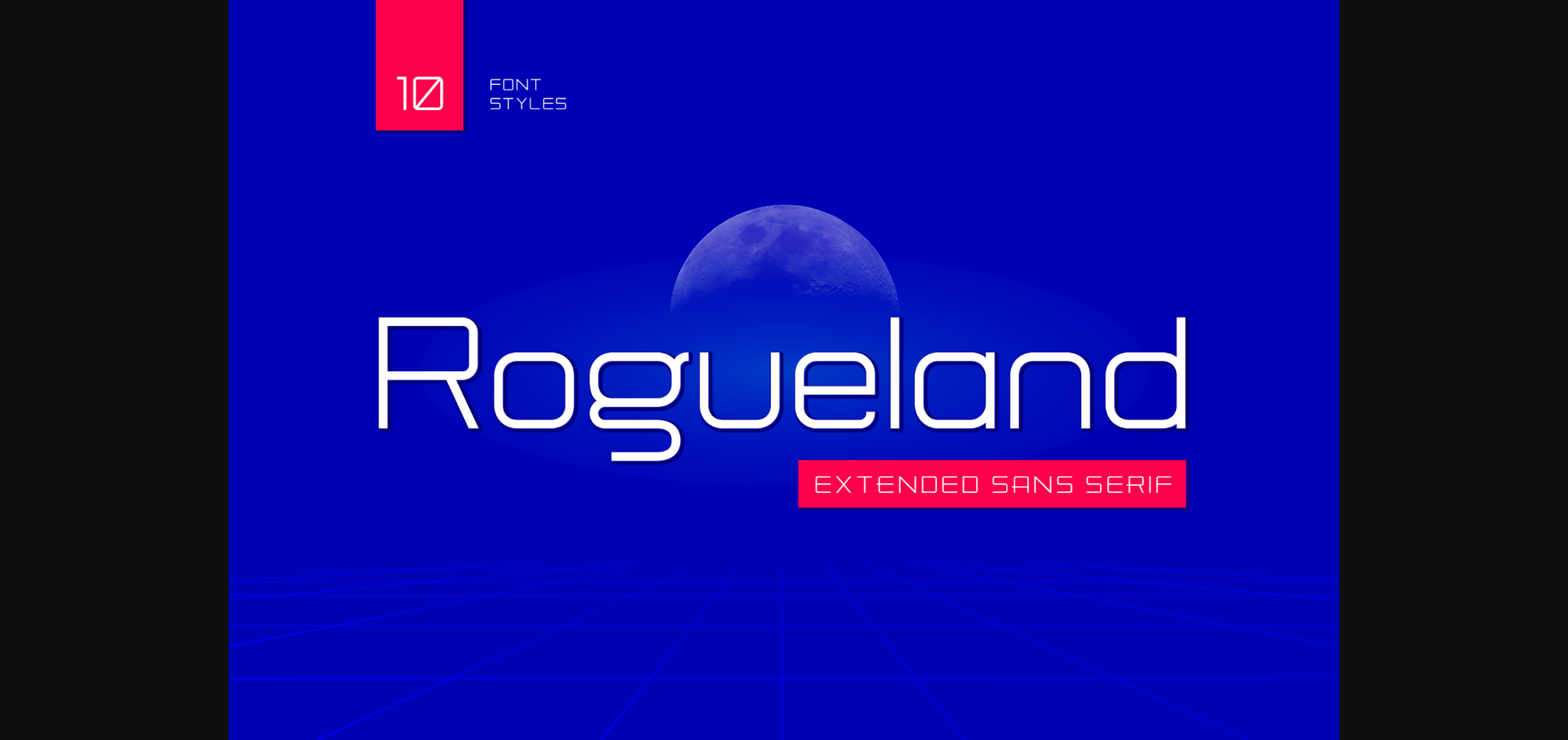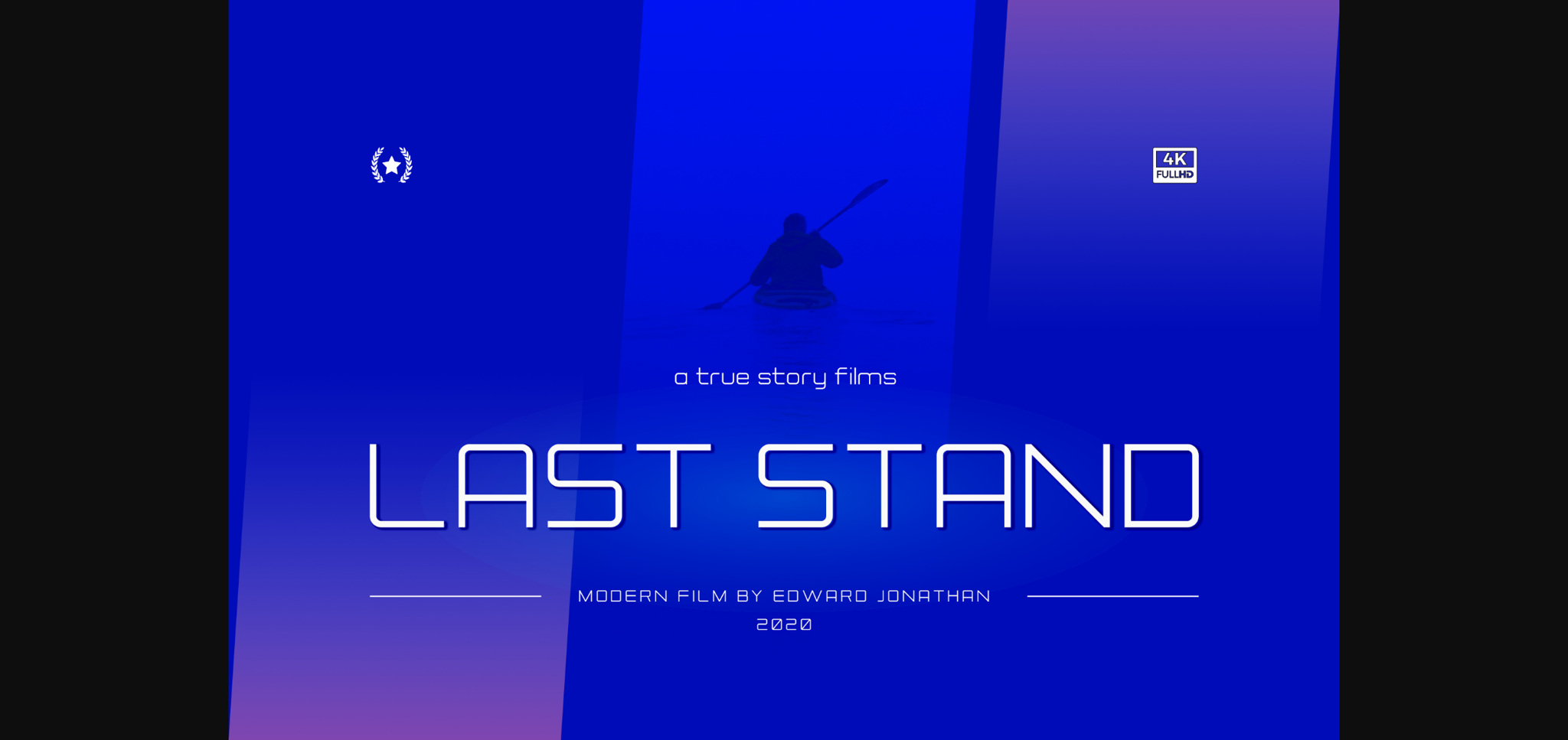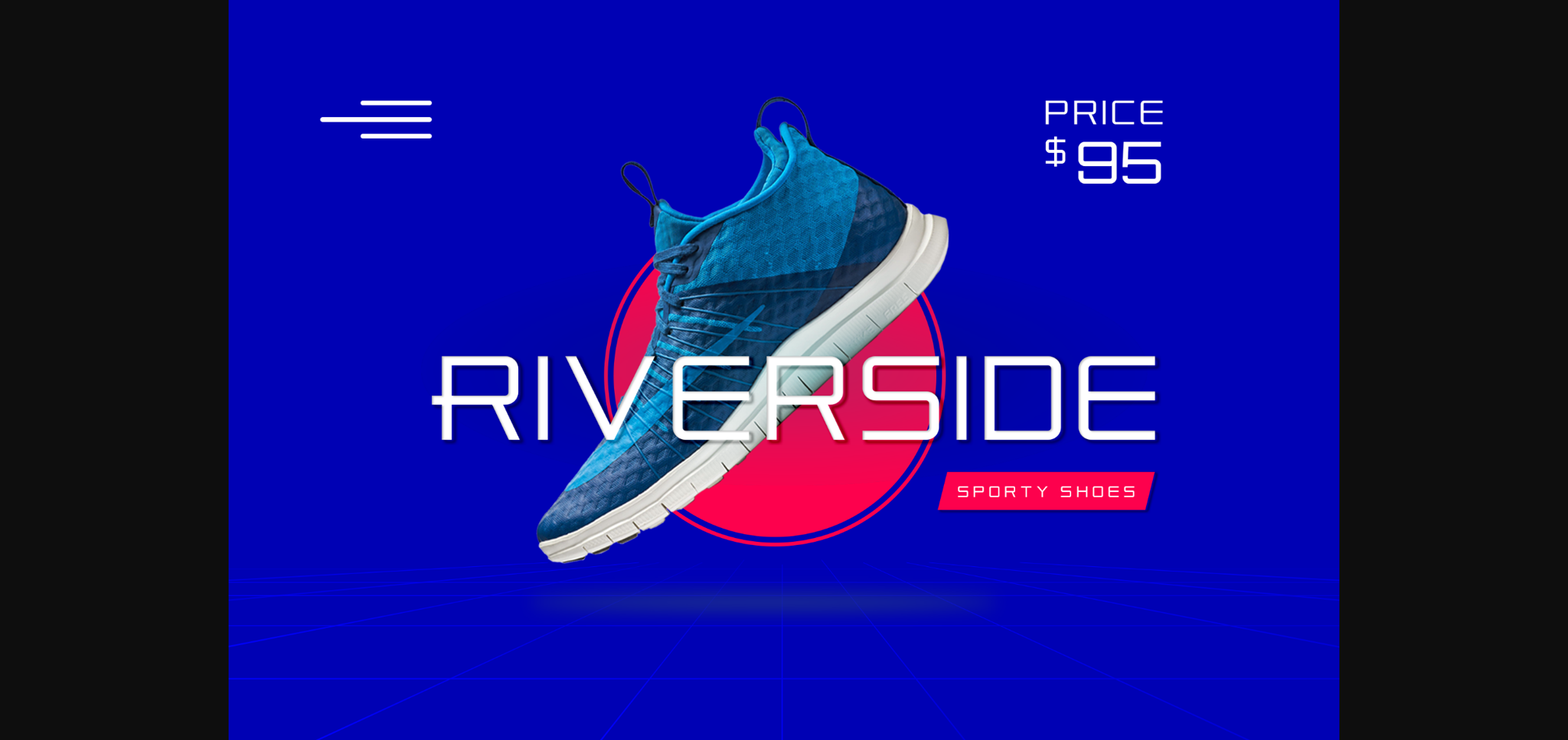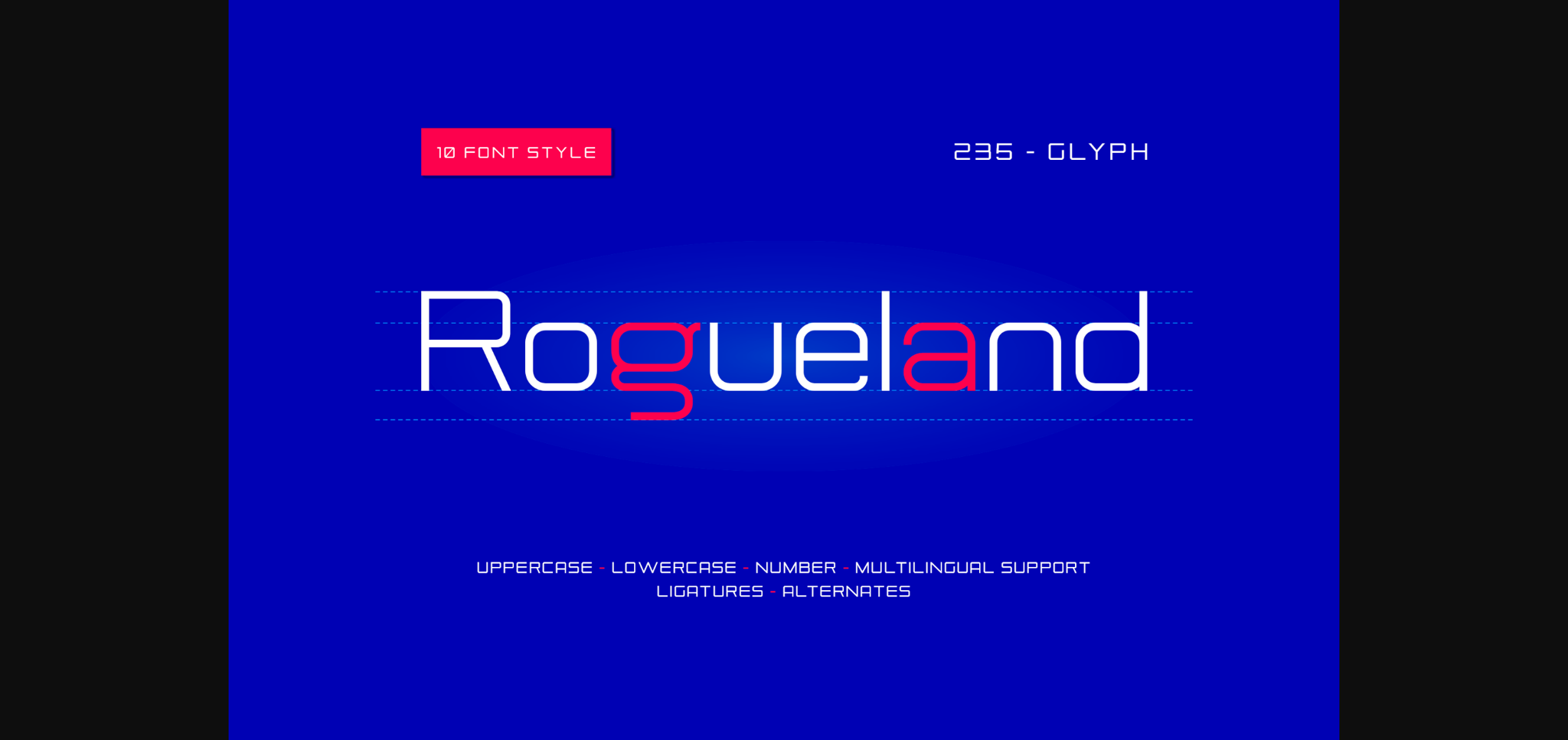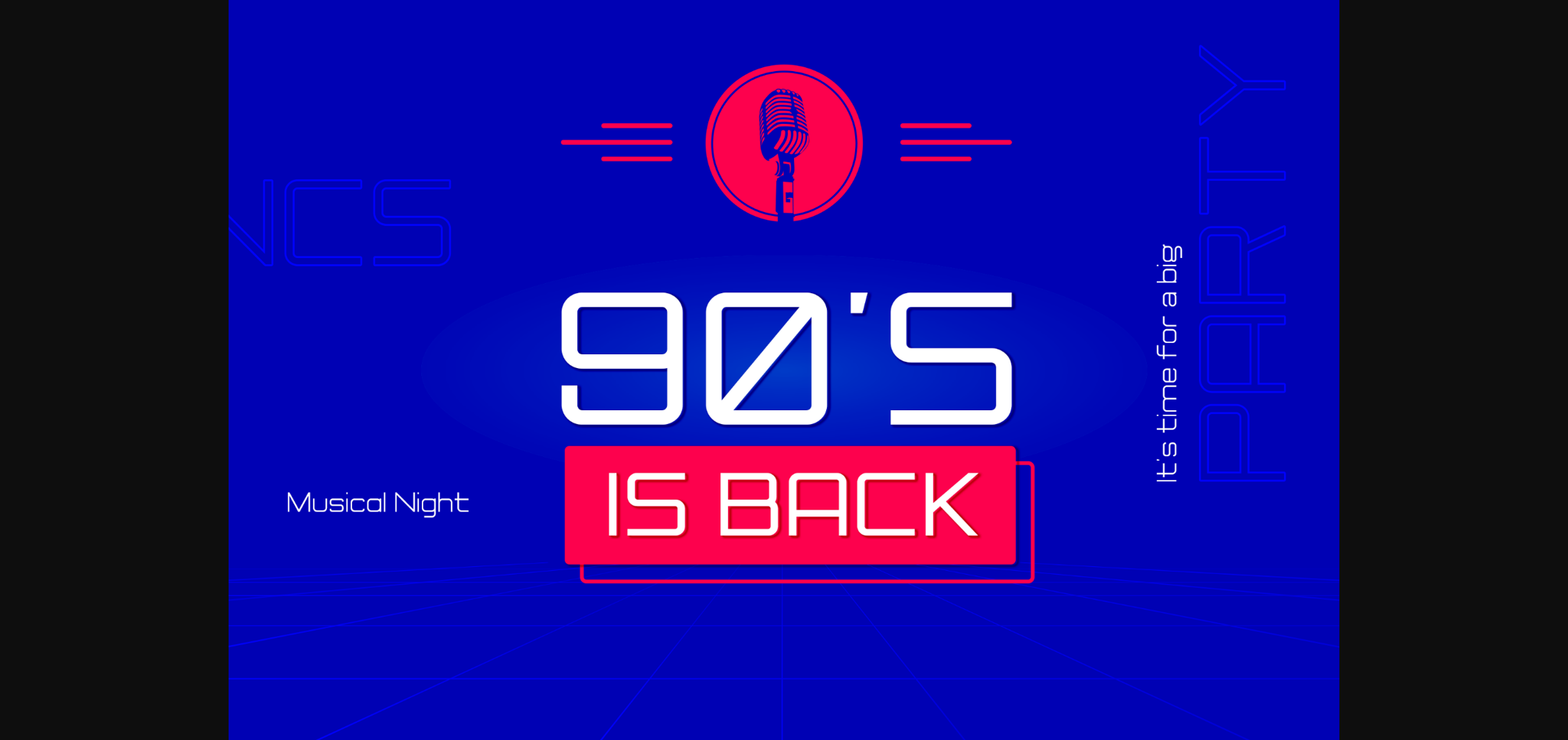
HomeSans Serif FontsRogueland Font Sans Serif Fonts Rogueland Font FacebookXPinterestWhatsApp 1 of 7 ... Rogueland Font Poster 2... Rogueland Font Poster 3... Rogueland Font Poster 4... Rogueland Font Poster 5... Rogueland Font Poster 6... Rogueland Font Poster 7... About Rogueland Font Rogueland is a techno styled and simple sans serif font. This original look will appeal to a wide range of ideas, from letterheads and titles, to stationery. DOWNLOAD NOW People also explored Bryonna Font Flattering Font Obladi Script Modern Calligraphy Script Font Mango Juice Font Moments Font Belliny Font Aquarium Font Saturday Write Sans Font 469 0 TagsRogueland Font Previous articlePicarose FontNext articlePurefly Font LEAVE A REPLY Cancel reply Comment: Please enter your comment! Name:* Please enter your name here Email:* You have entered an incorrect email address! Please enter your email address here Website: Save my name, email, and website in this browser for the next time I comment. Personal Use Free Ammanda Personal Use Free Read more about this font Cataclysmo Personal Use Free Read more about this font Super Bubbly Font Personal Use Free Read more about this font Salmoni Personal Use Free Read more about this font BLOG Using Fonts in Digital Marketing: Tips to Strengthen Your Brand Identity In the realm of digital marketing, every visual element plays a crucial role in shaping a brand's identity, and fonts are no exception. The... 5 Fonts That Will Dominate Design Trends in 2026 To increase your work productivity, choose the most readable fonts. Exploring Font Trends